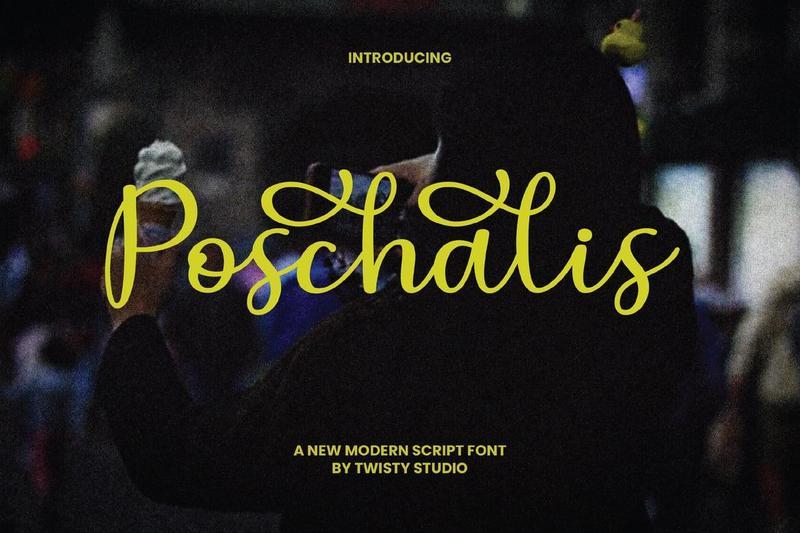
**Modern Script Font – Poschalis**
Poschalis is a modern script typeface designed to deliver elegance, flow, and expressive handwritten charm. Featuring smooth curves, graceful strokes, and a naturally stylish rhythm, Poschalis creates a refined visual style that feels both personal and contemporary. Its balanced script character makes it versatile for a wide range of creative projects, from luxury branding to social media content. Whether for invitations, logos, or packaging, Poschalis brings sophistication and warmth into every design.
Uppercase & Lowercase
Alternates & Ligatures
Numerals & Punctuation
Multilingual Support
**Who Should Use Poschalis?**
Poschalis is ideal for designers, creatives, and brands who want a modern script font with an elegant and natural handwritten appearance. Its especially suited for projects that require stylish typography with a soft and expressive personality.
**Suitable For:**
Branding and logo design
Wedding invitations and stationery
Social media graphics
Packaging and product labels
Beauty and lifestyle branding
Quotes and typography design
Personal branding projects
Elegant handwritten compositions